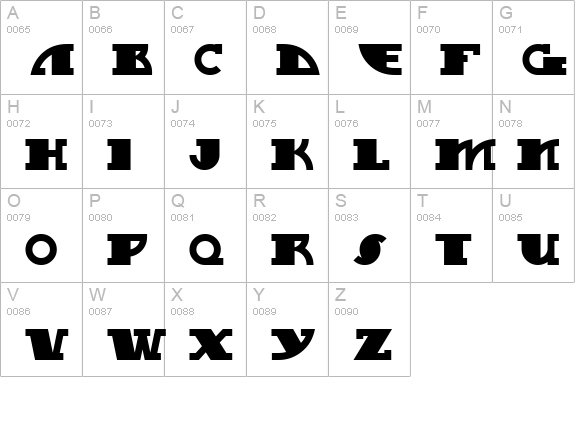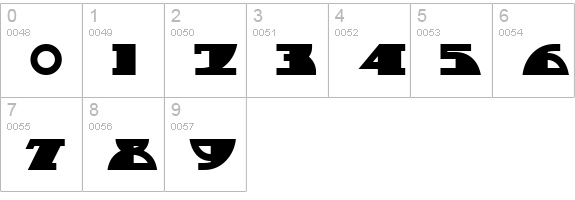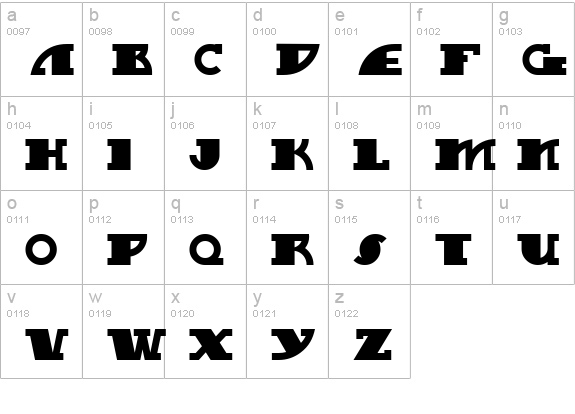
MyGalSwoopyNF Font Details
Introducing MyGalSwoopyNF, a stylish and modern font that exudes sophistication and elegance. This beautifully designed typeface features sleek lines and graceful curves that make it perfect for a wide range of creative projects. Whether you're designing a logo, crafting a brand identity, or working on a marketing campaign, MyGalSwoopyNF is sure to make a lasting impression. What sets MyGalSwoopyNF apart is its versatility and adaptability. This font can effortlessly transition from being the focal point of your design to playing a supporting role, making it incredibly versatile and suitable for a variety of applications. Its eye-catching appearance is sure to capture the attention of your audience and leave a lasting impression. Best of all, MyGalSwoopyNF is available for free download at FontsMarket.com. This means that you can access this stunning font without any cost, making it an excellent choice for designers on a budget. Don't miss out on the opportunity to elevate your designs with the beauty and elegance of MyGalSwoopyNF. Download it today and let your creativity soar!